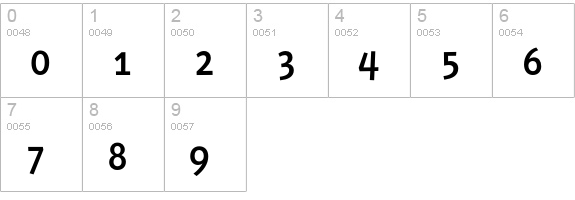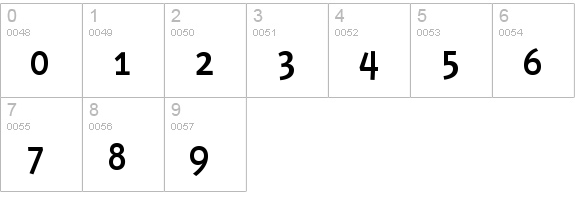
PedestriaMVB-Medium is a balanced, medium-weight variant in the PedestriaMVB typeface family \xE2\x80\x94 well suited to sub-headlines, navigation, and balanced editorial work.
PedestriaMVB-Medium font is a stunning display typeface that combines elegance with modernity. Its clean and crisp lines make it perfect for both digital and print designs, ensuring readability and visual impact. This font's medium weight strikes the perfect balance between boldness and subtlety, making it versatile for a wide range of creative projects. Whether you're designing a logo, creating a poster, or crafting a website, PedestriaMVB-Medium font will elevate your design to new heights. One of the best things about this font is that it is freely available to download at FontsMarket.com. This means that you can add this incredible typeface to your collection without any cost. With its extensive character set and OpenType features, PedestriaMVB-Medium font gives you the freedom to explore various typographic possibilities and create truly unique designs. Designed with meticulous attention to detail, this font offers exceptional legibility without compromising on style. Its carefully crafted letterforms ensure that every word stands out, making your message clear and impactful. Whether you're a professional designer or an aspiring creative, PedestriaMVB-Medium font will enhance your work and bring your vision to life. Its versatility, elegance, and the fact that it is freely available to download at FontsMarket.com make it a must-have in any designer's toolkit.